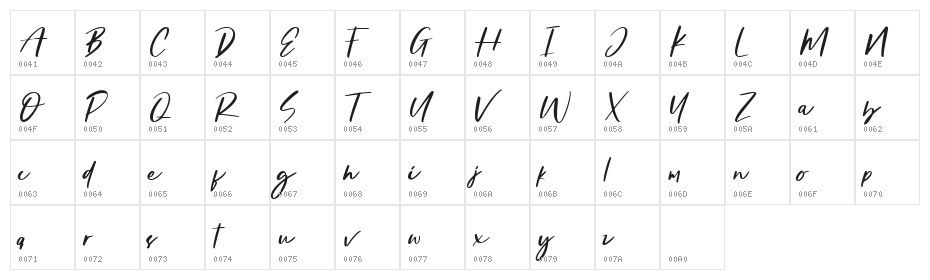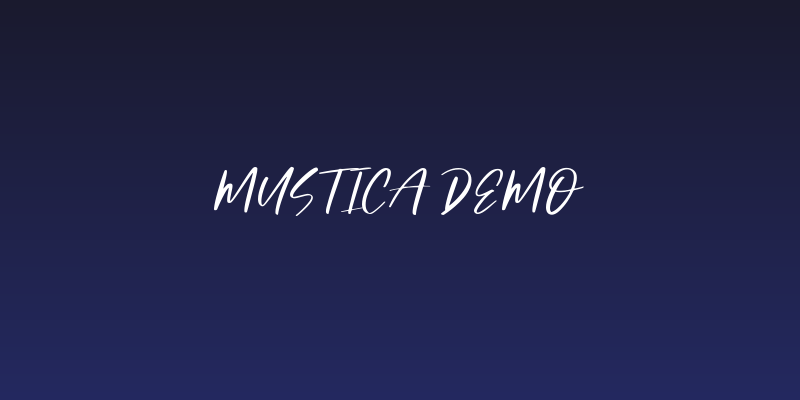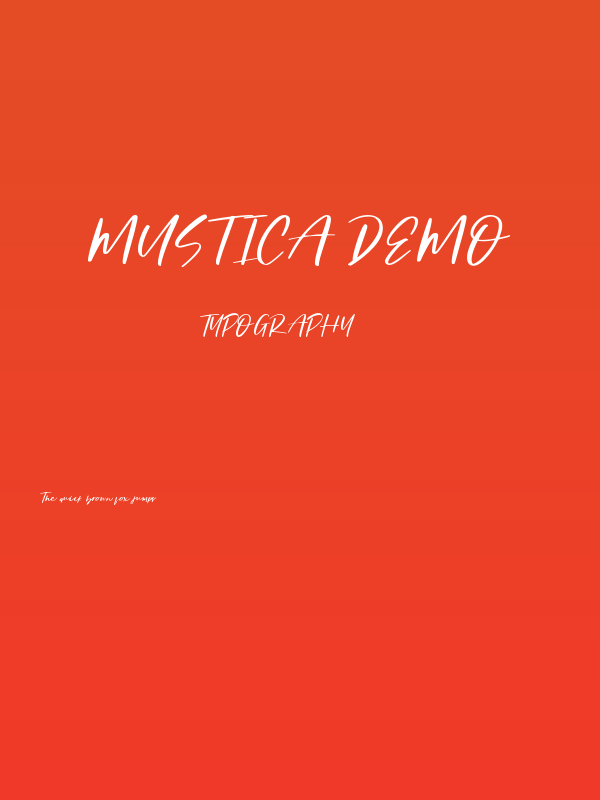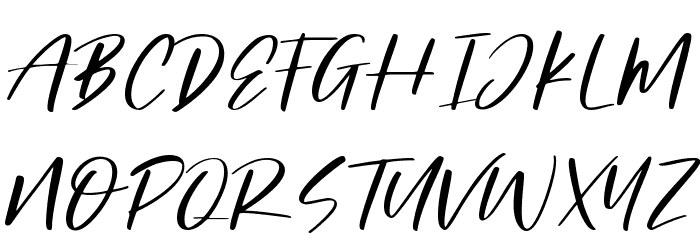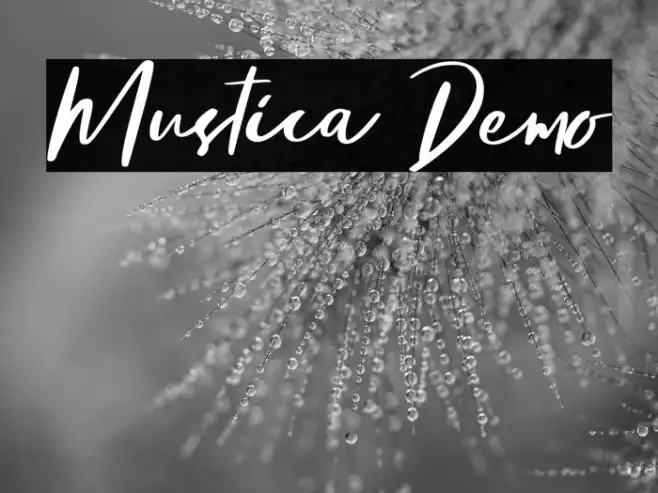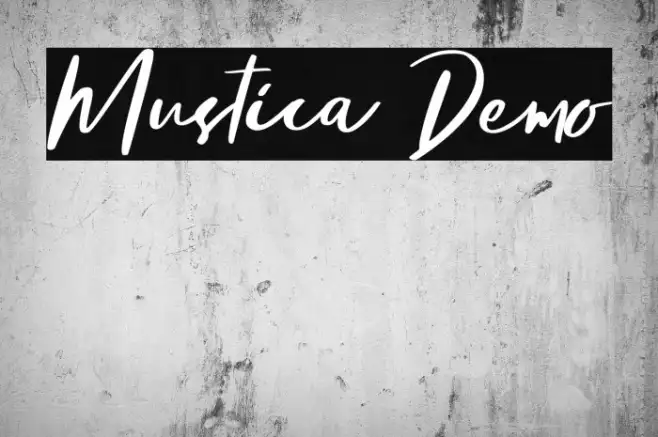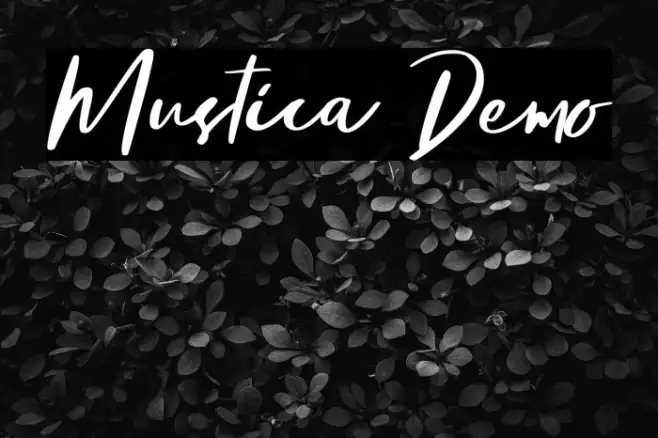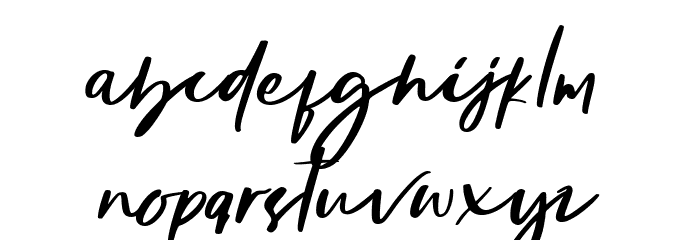
Mustica Demo Font
This font exudes a dynamic and expressive style, characterized by its fluid, handwritten appearance. The strokes are smooth and flowing, with a natural rhythm that mimics the motion of a brush or pen. Each letter is distinct yet harmoniously connected, creating a sense of movement and energy. The uppercase letters are bold and slightly slanted, while the lowercase letters maintain a consistent flow with elegant loops and curves. The overall design is modern and artistic, making it suitable for creative and informal applications.
| Proposed Projects | Ideal for branding, invitations, greeting cards, and artistic projects that require a personal touch. |